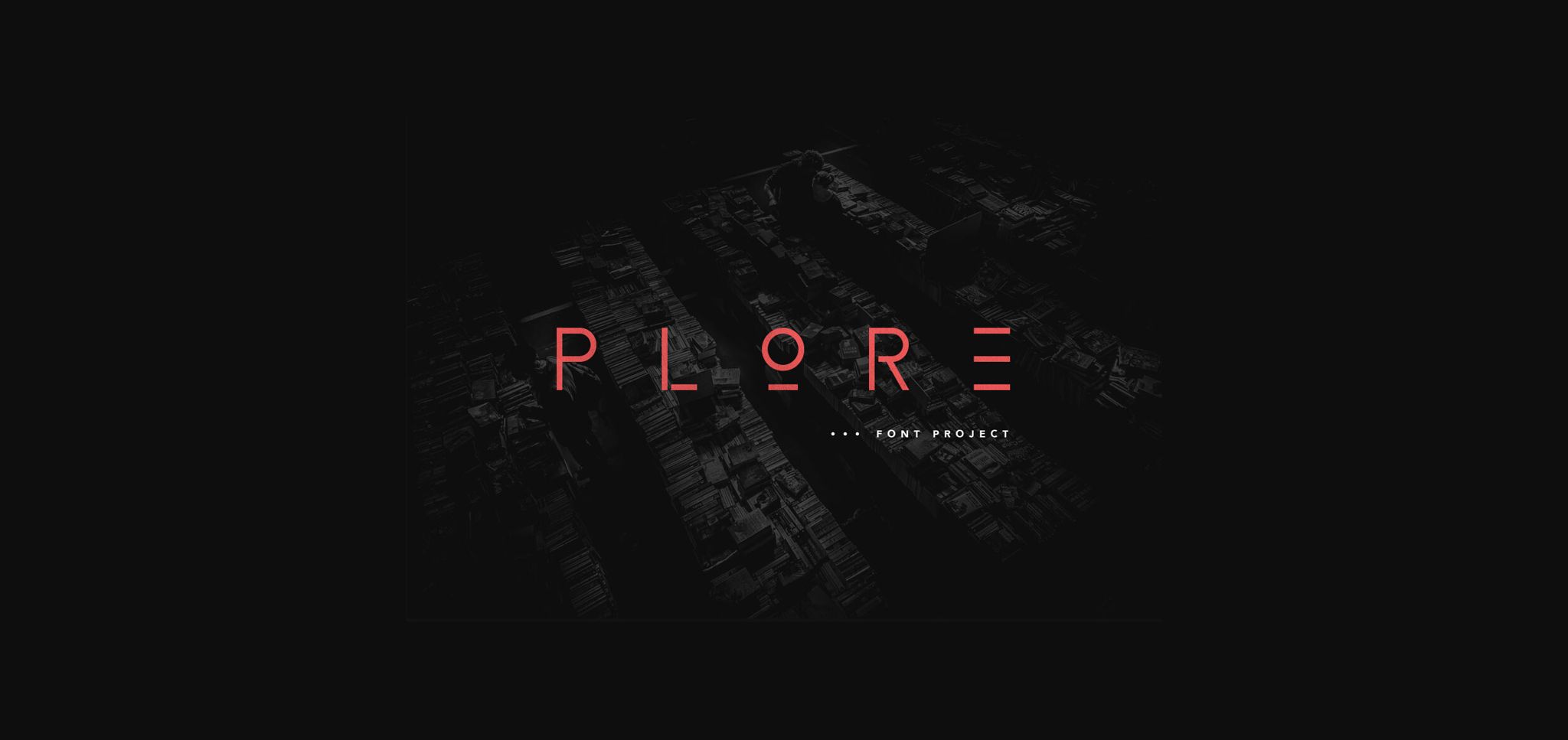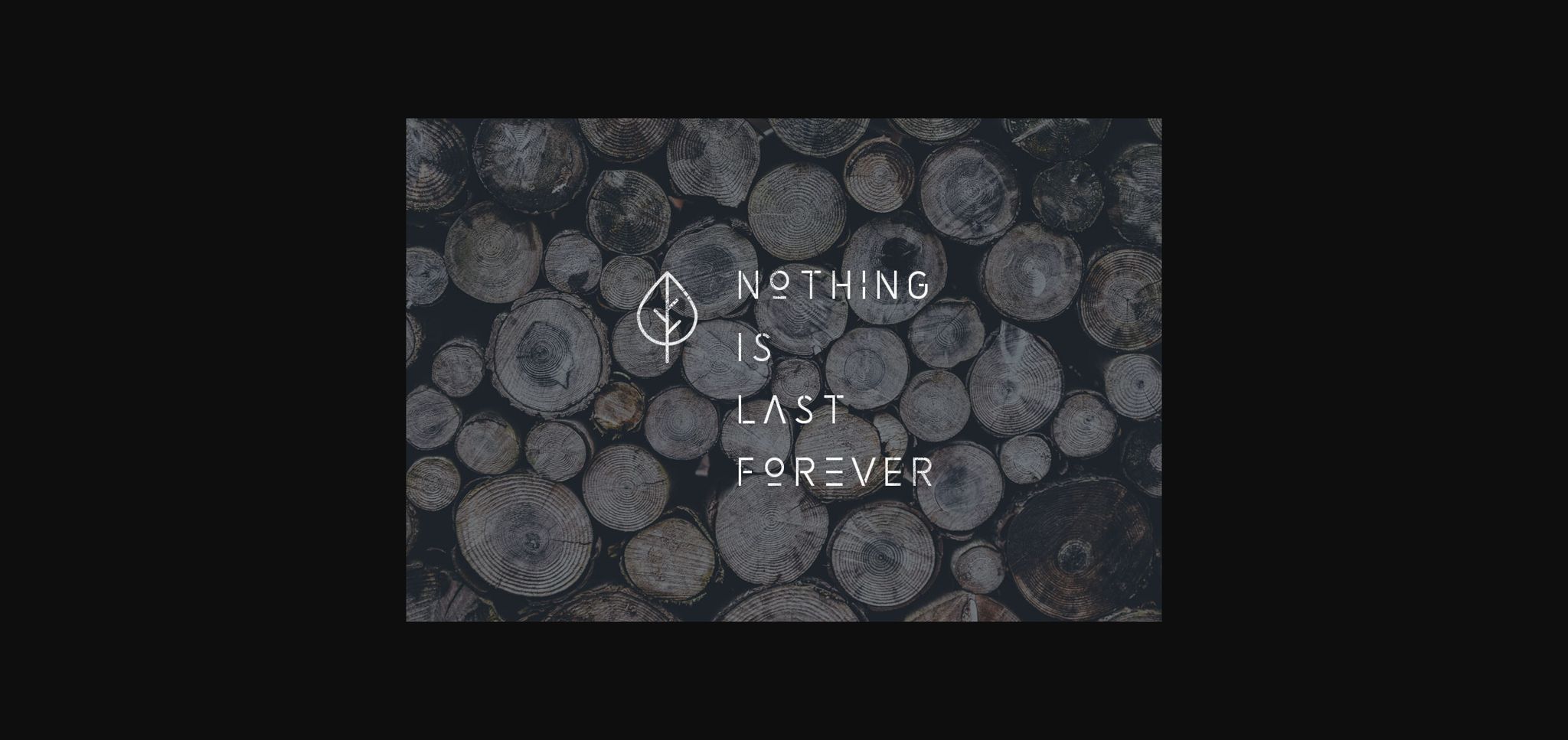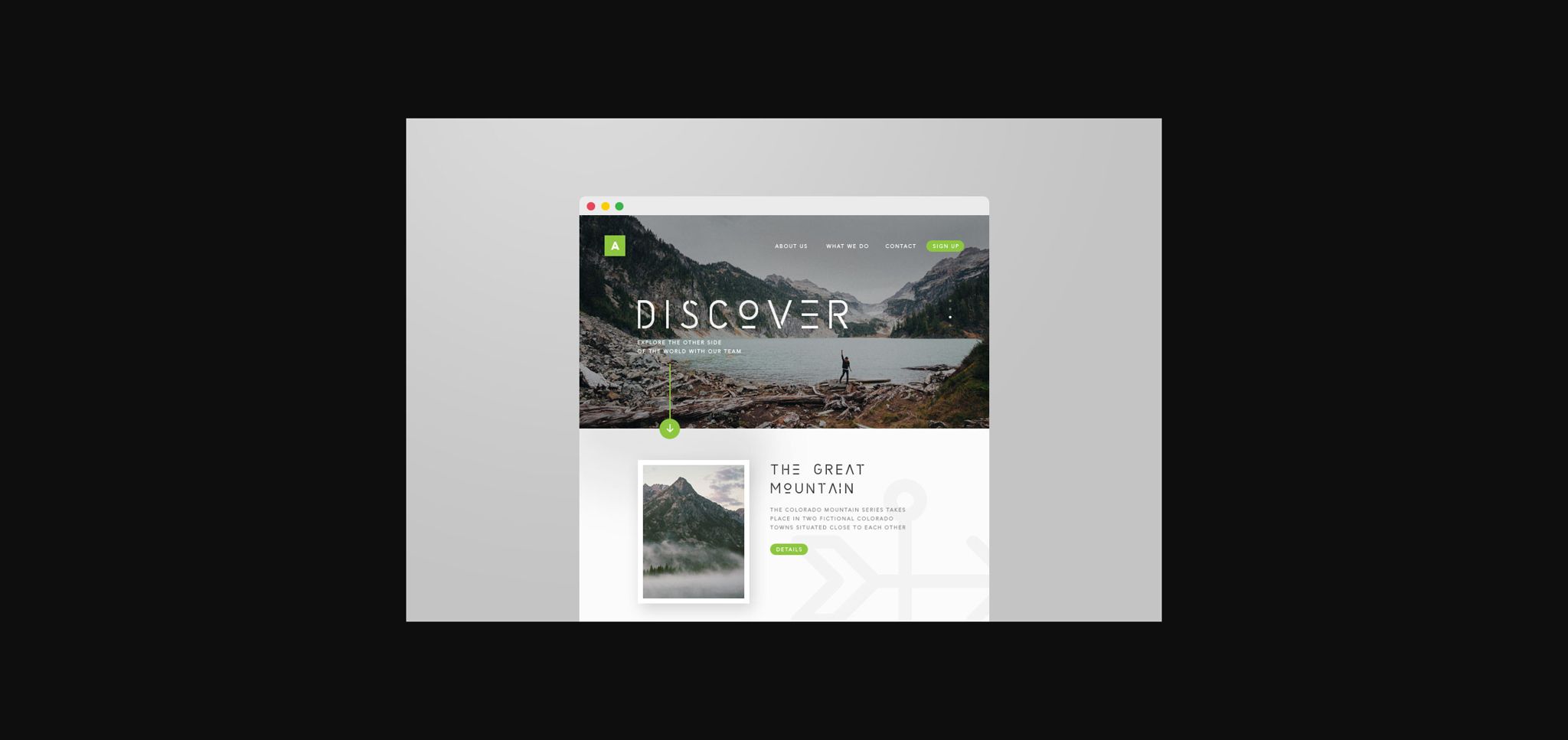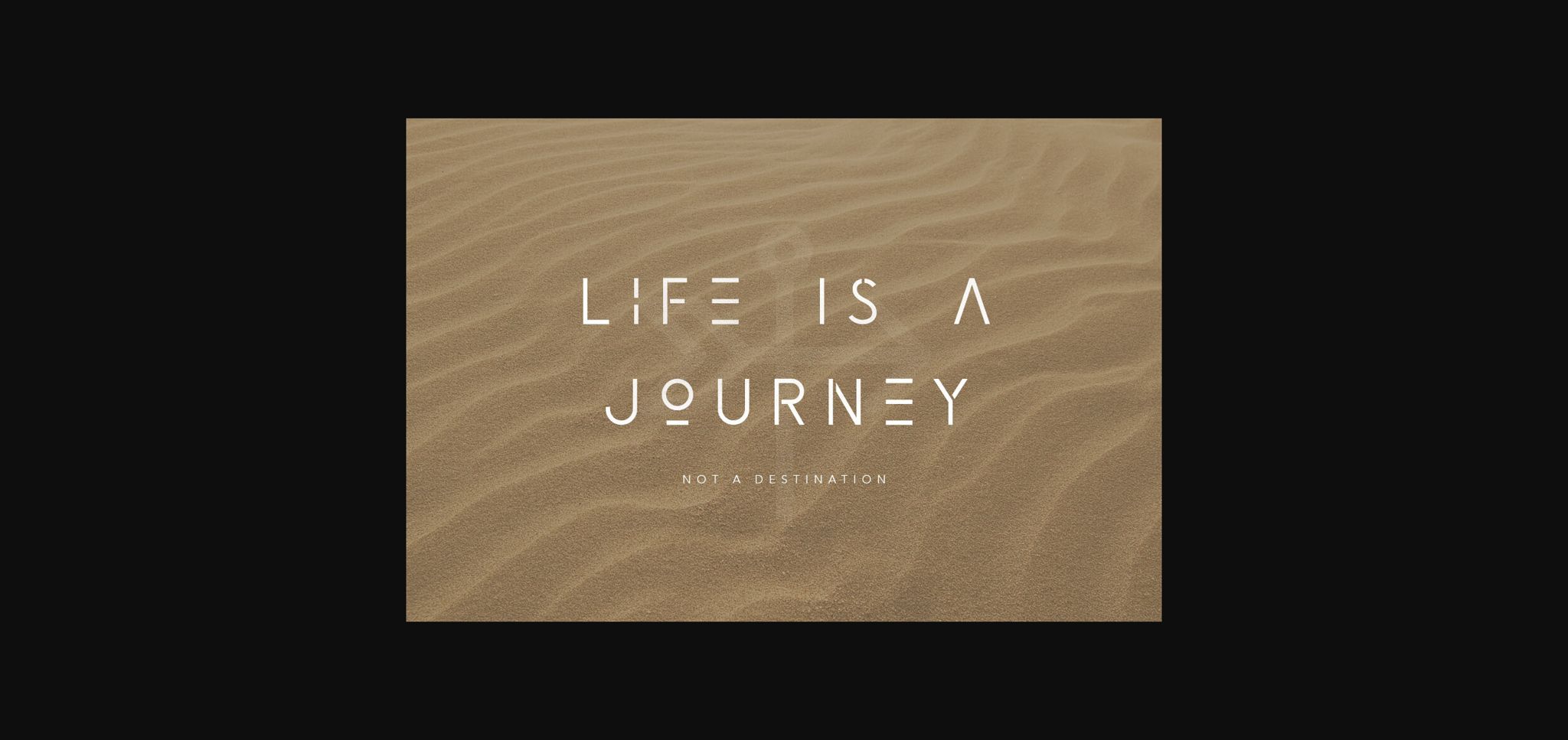
Plore Font
About Plore Font
Plore is a modern stencil sans serif font, every single letter has been uniquely crafted.
This font includes a beautiful alternate glyph. You can access the alternate glyph via Font Book (Mac user) or Windows Character Map (Windows user).